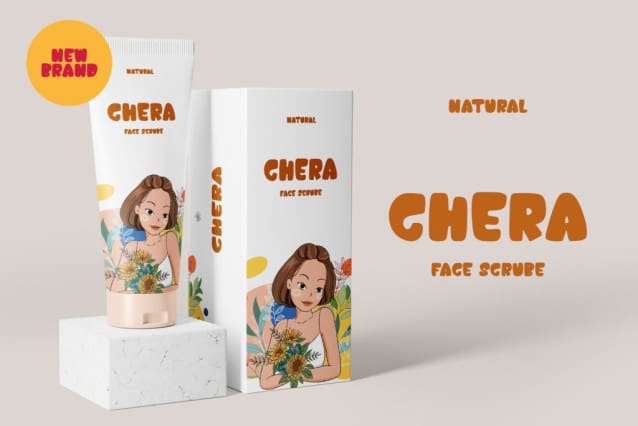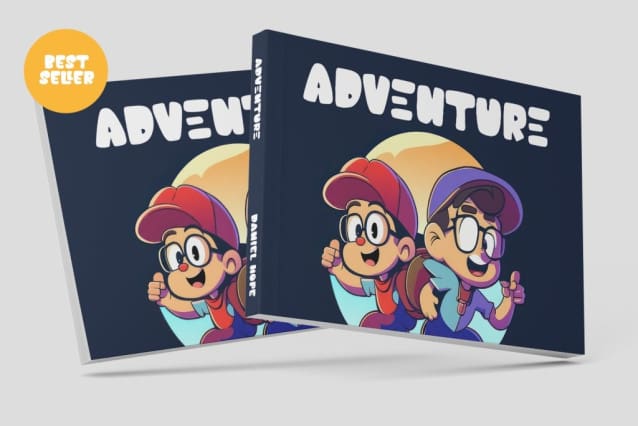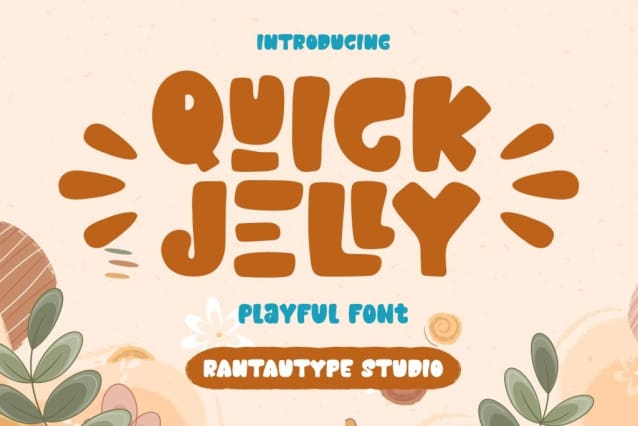
Quick Jelly Font
Quick Jelly Font is a playful font inspired by bubble fonts. We keep this font fun, playful and versatile. Come with alternate character, ligature and multilingual support.
Quick Jelly is the ideal choice for any creative activity, such as logos, title, watermark on photography, cover, branding, display and magazine, wedding event, branding. business, quotes, album cover, business cards, commercial projects and many other design projects with a playful taste.